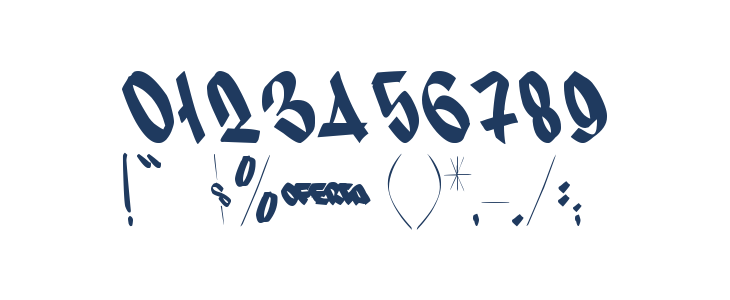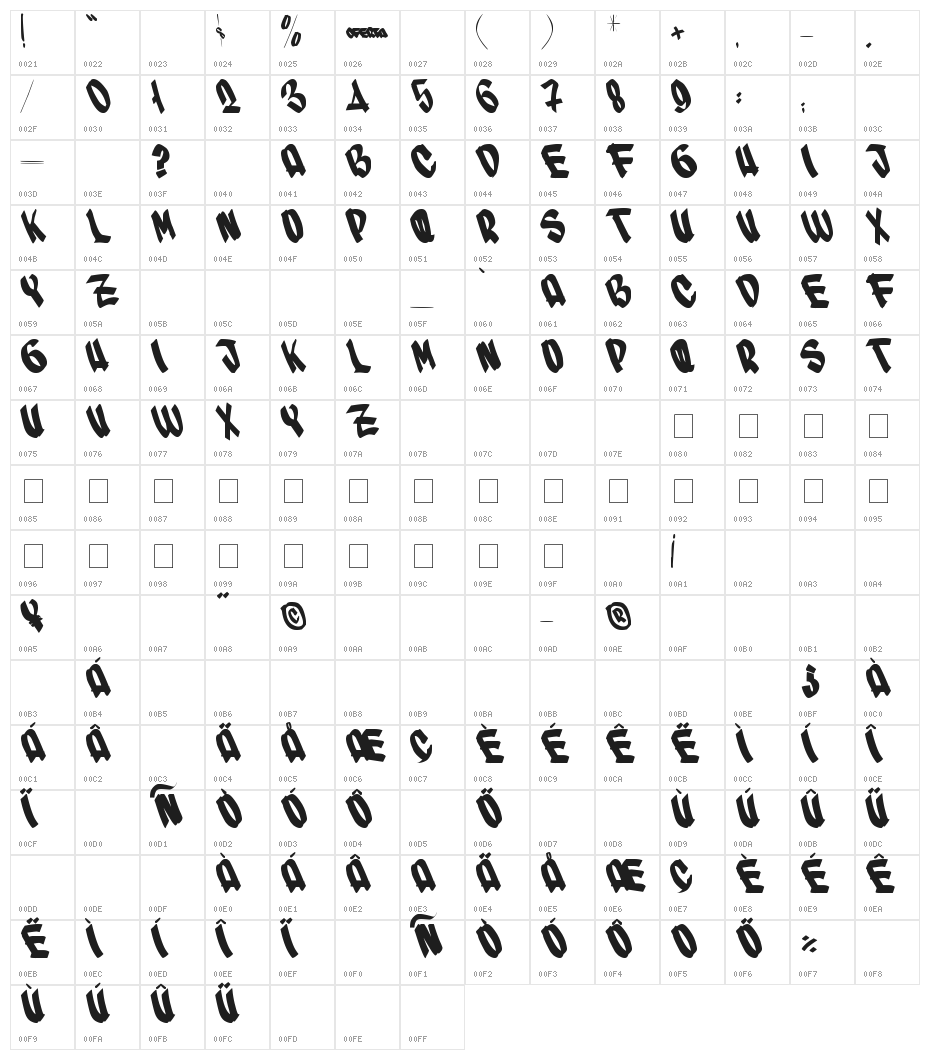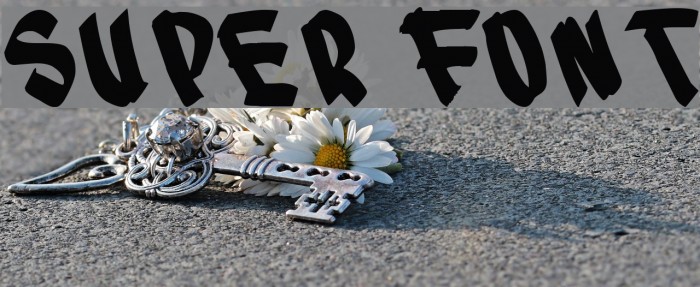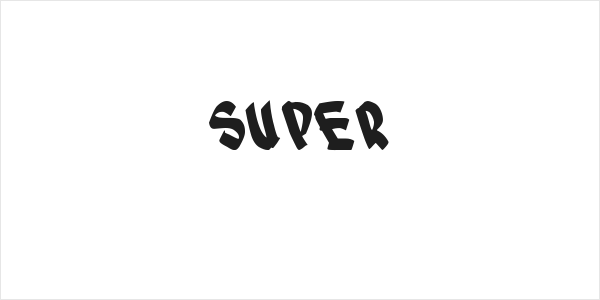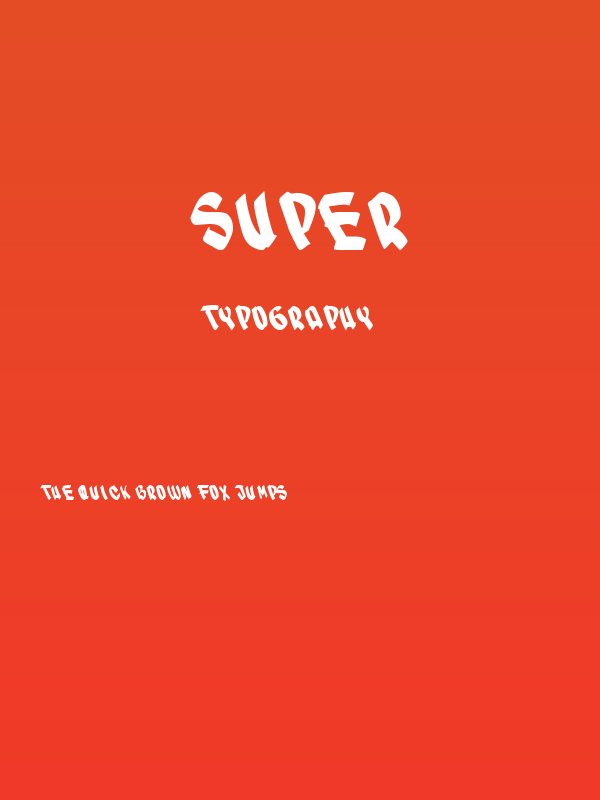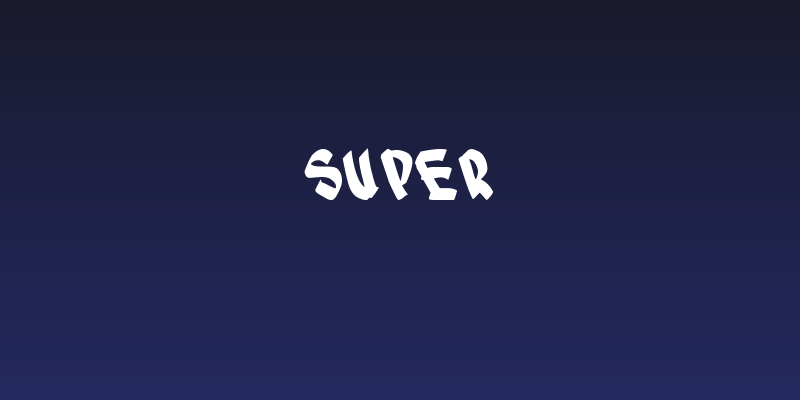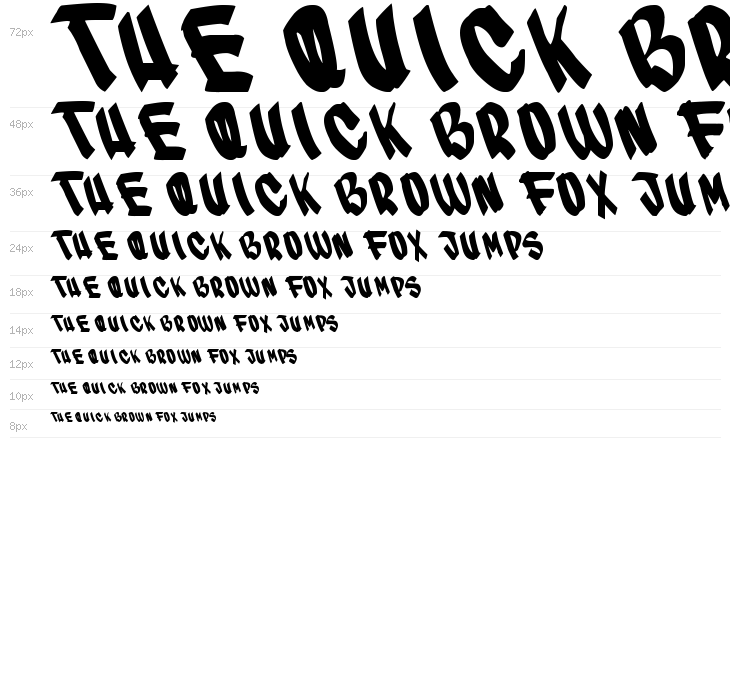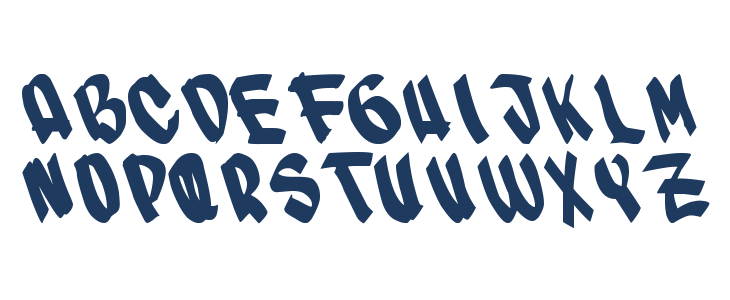
SUPER Font
SUPER Description
This font features a bold and dynamic style with sharp, angular edges and a graffiti-like appearance. The characters are thick and robust, giving a sense of movement and energy. The uppercase and lowercase letters maintain a consistent style, with exaggerated curves and pointed ends. Numbers and special characters follow the same bold and expressive design, making the font suitable for eye-catching displays. The overall look is modern and edgy, perfect for projects that require a strong visual impact.
Proposed ProjectsIdeal for street art designs, urban-themed posters, music album covers, and edgy branding projects.